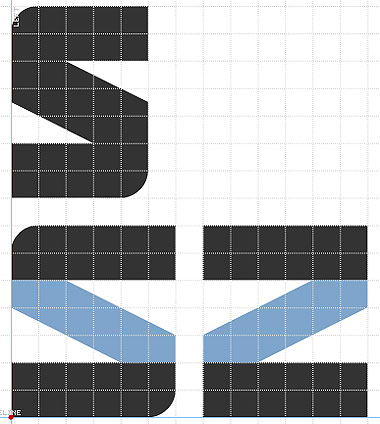
• Inspired by a logo
This is a very good font, Stelios—very usable. I love the v, the z, the s, heck all of them. But at small sizes, some letters become too heavy, e and s for instance. Maybe you could lighten the connection of the e middlebar or disconnect it. Or maybe you never intended it to be used in small sizes, in which case it is fine as it is. :)
The e has given me much trouble...lemmie see what I can do.
The "s2 looks so massive in small sizes, because it#s diagonal is one half brick too thick.
If you add one brick in his width, you could shrink it to the same thickness as for example in "z".